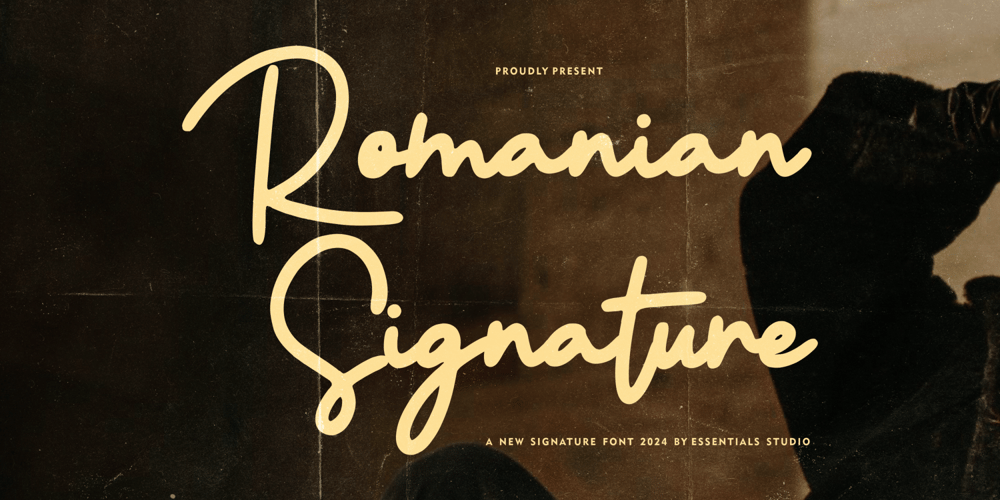
Romanian Signature Font Family was designed by Annas Rifky Anhar and published by Essentials Studio. Romanian Signature contains 1 styles and family package options. Experience the elegance of Romanian Signature, the epitome of luxury in the world of signature fonts. This distinctive typeface boasts a chic and refined finish, ideal for enhancing brand imagery, product packaging, and impeccably curated magazine layouts. Extend its style to social media and lend your posts an inimitable grace, or add a flourish to your wedding invitations for an extra touch of sophistication, enabling you to effortlessly unlock the full artistic potential of Allwish Honest. Discover a world of style and refinement, all encapsulated within this exquisite font.